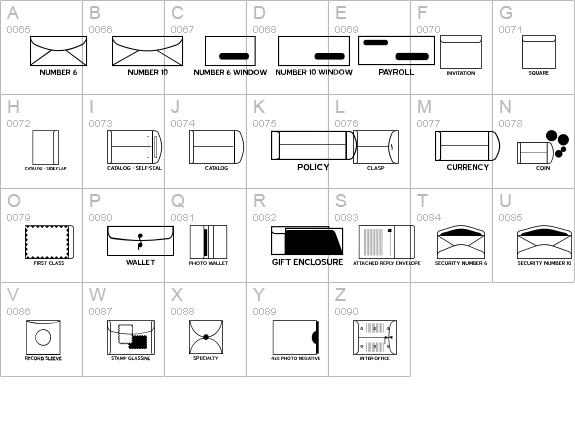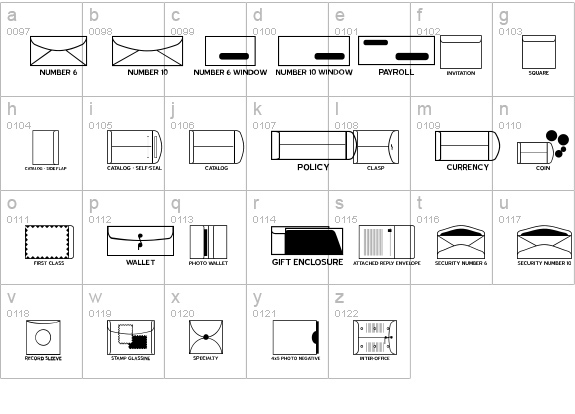
Envelopes JL Font Details
Envelopes JL font is a charming and elegant typeface that adds a touch of sophistication to any design project. Its sleek and modern look makes it perfect for invitations, business cards, and more. The unique envelope-inspired design of this font gives it a distinct and stylish appearance that is sure to make your text stand out. Best of all, Envelopes JL font is available for free download at FontsMarket.com. Whether you're a designer looking to add a new font to your collection or a small business owner in need of a fresh look for your branding, Envelopes JL font is a fantastic choice. Download it today and elevate your designs with this eye-catching and versatile font.